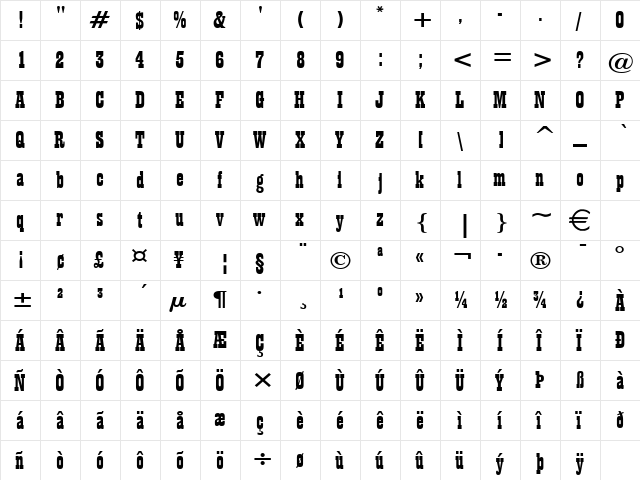
Billboard11Wide Normal
Design Context for Billboard11Wide Typeface
Billboard11Wide takes a measured approach to typography — its balanced proportions and neutral character make it a reliable workhorse for both digital and print work.